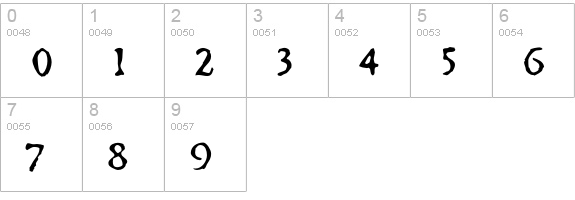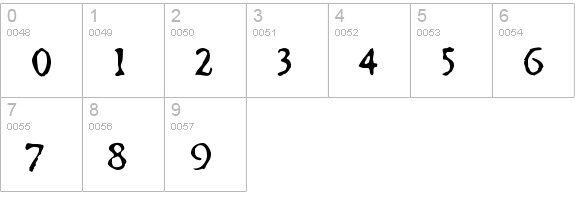
Irregular-Caps Font Details
Introducing Irregular-Caps font, a captivating typographic masterpiece designed to add an extraordinary touch to your creative projects. This unique and visually striking font is the perfect choice for those seeking to make a bold statement with their designs, capturing attention and leaving a lasting impression. Irregular-Caps font features a remarkable blend of irregular and edgy letterforms, each meticulously crafted to exude a sense of dynamism and individuality. Its distinct character variations and irregular capitalization create a sense of artistic unpredictability, making it an ideal choice for branding, packaging, headlines, posters, and more. With its unparalleled versatility, Irregular-Caps font offers an array of possibilities to explore and experiment with. Whether you're aiming for a modern and stylish look or seeking to create a rebellious and unconventional vibe, this font will effortlessly elevate your designs. But the best part? Irregular-Caps font is available to you absolutely free! You can easily download this captivating typeface at FontsMarket.com, a trusted platform for quality fonts. Embrace the freedom to enhance your creative endeavors without any financial constraints. So why wait? Unleash your creativity and let Irregular-Caps font amplify the impact of your designs. Download it today at FontsMarket.com and embark on a typographic journey that is bound to captivate and inspire.